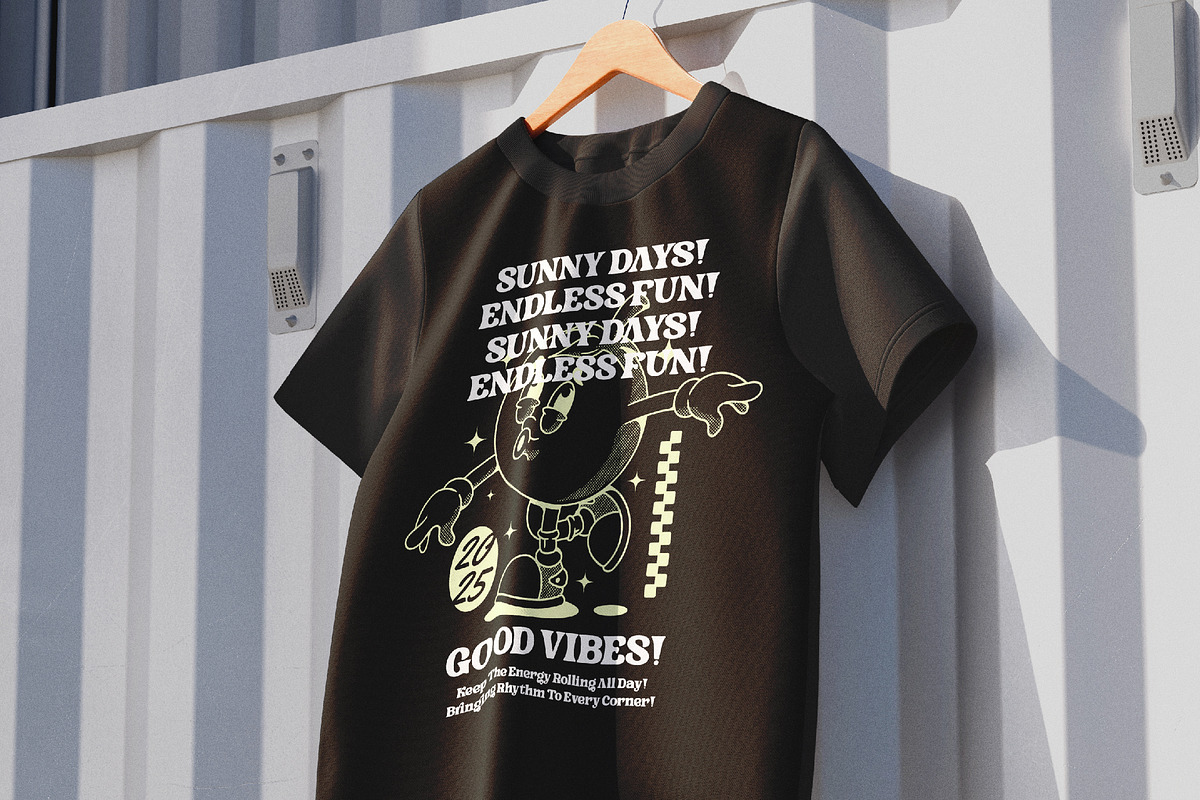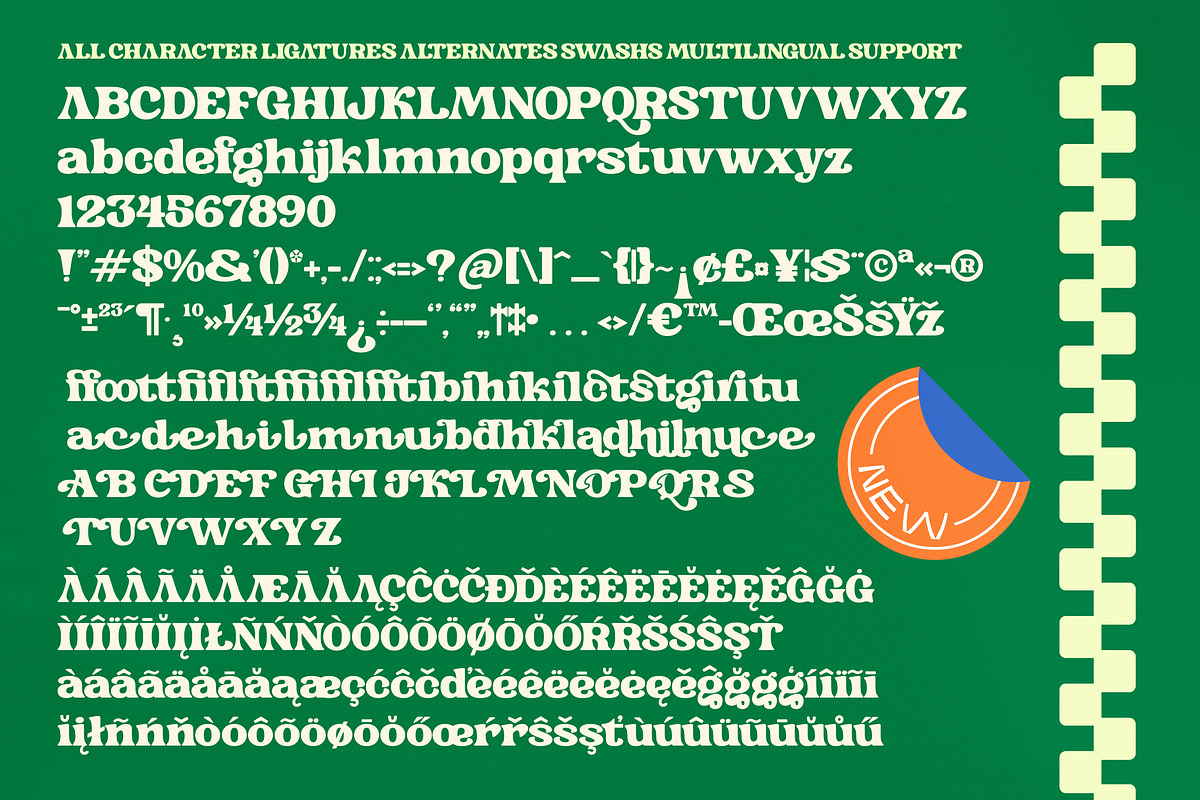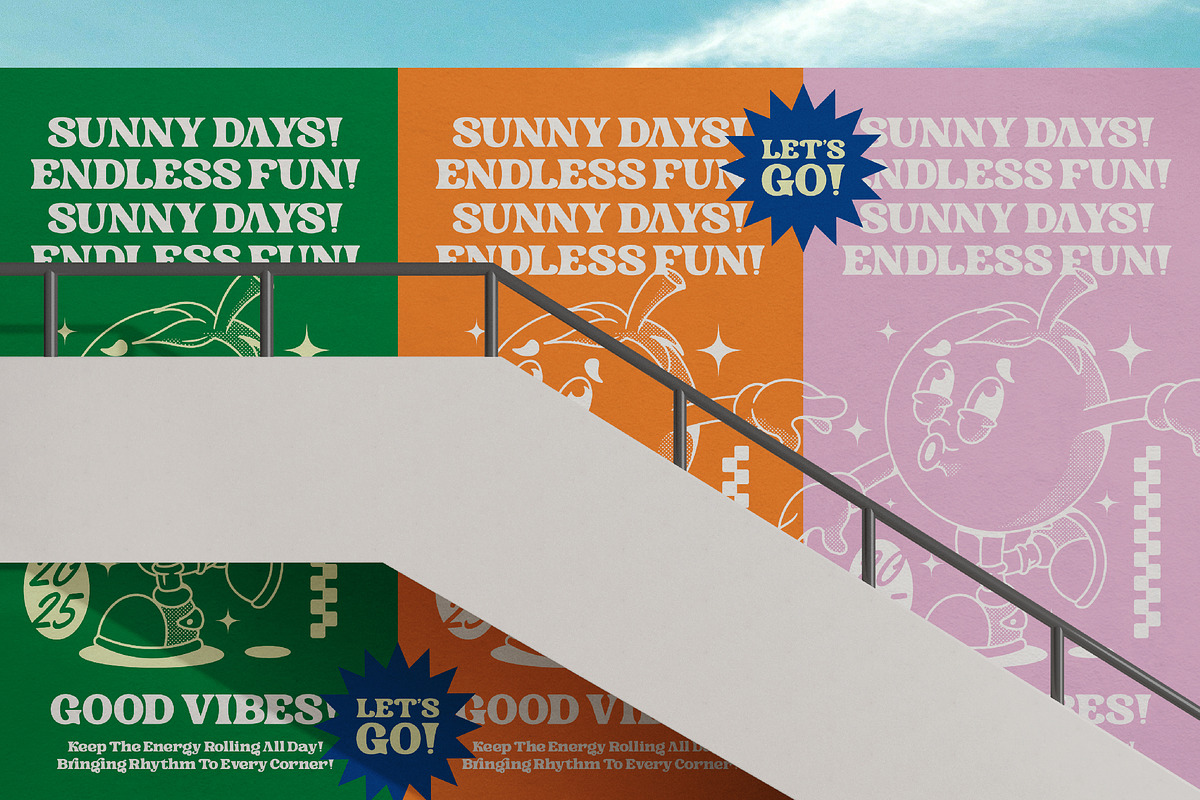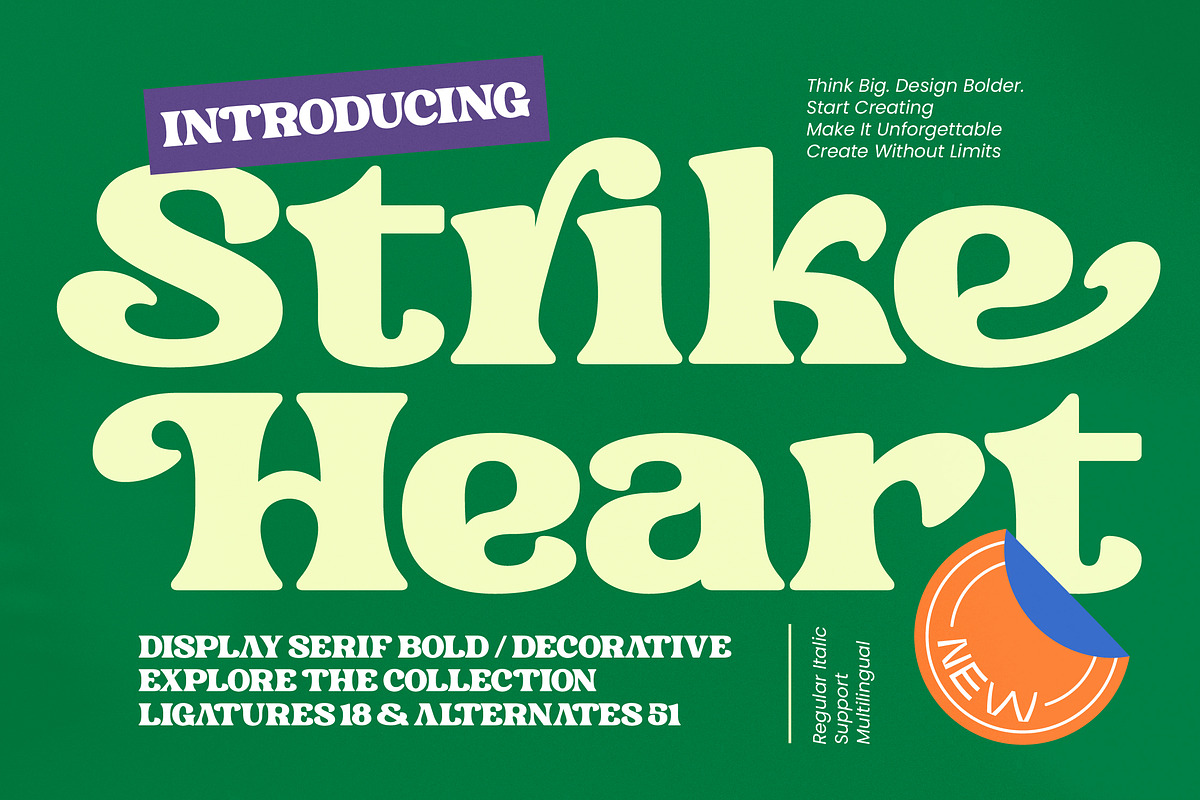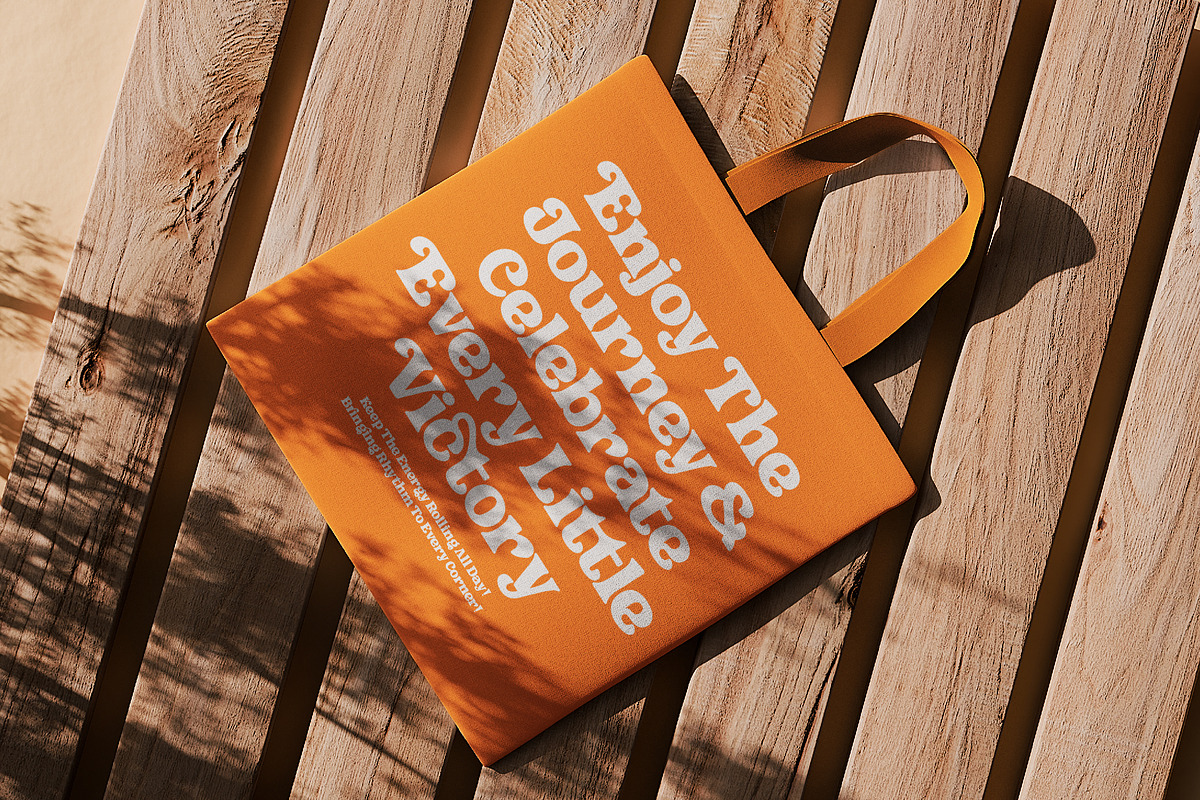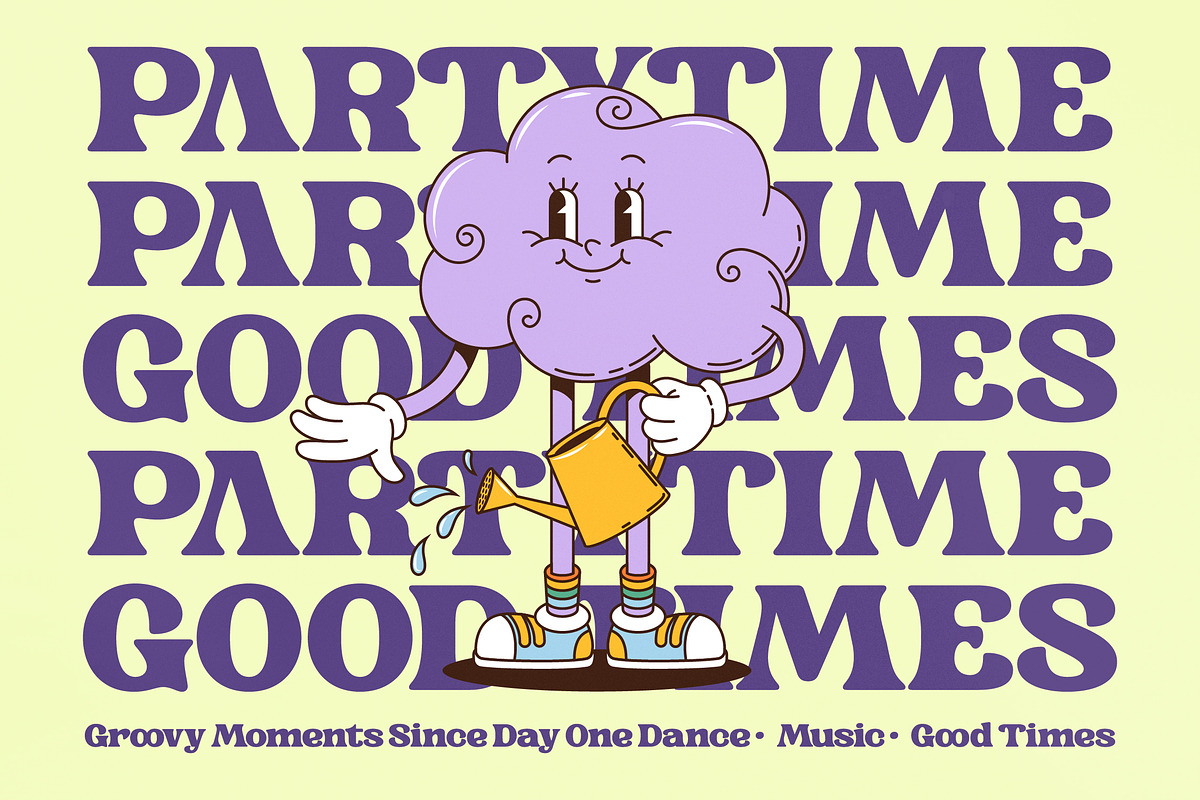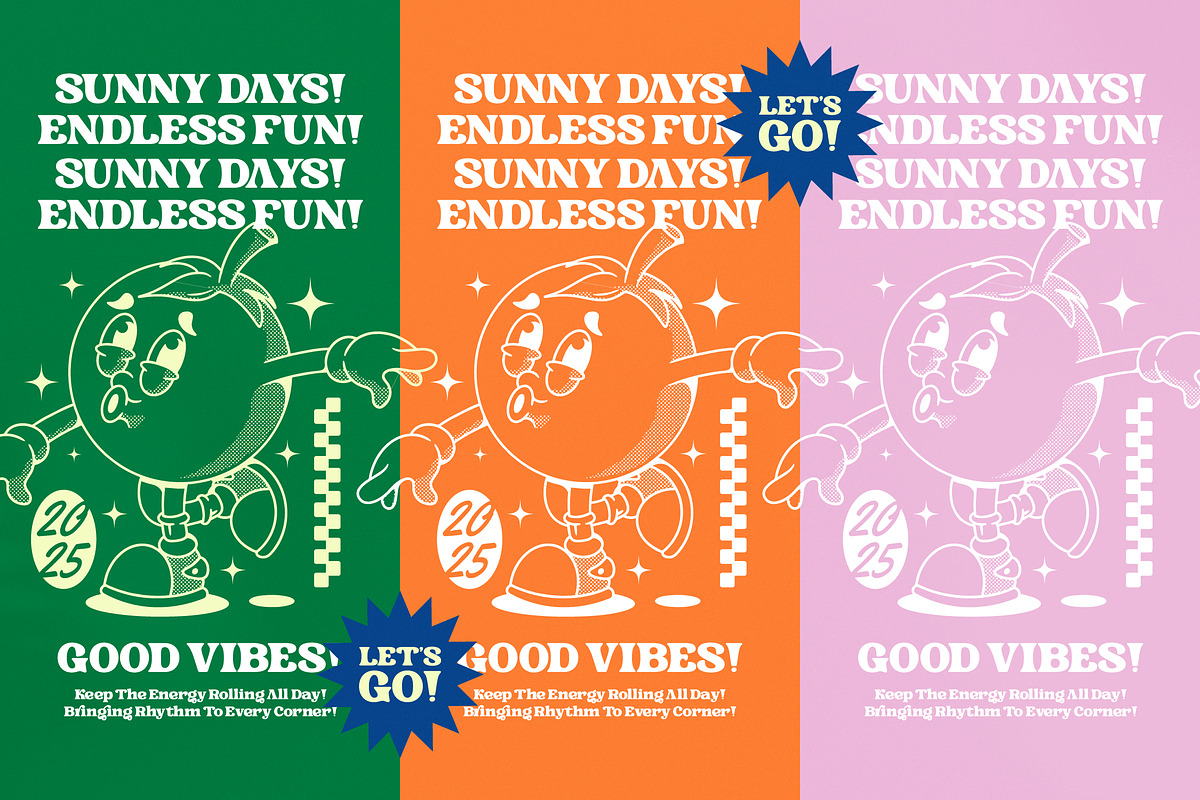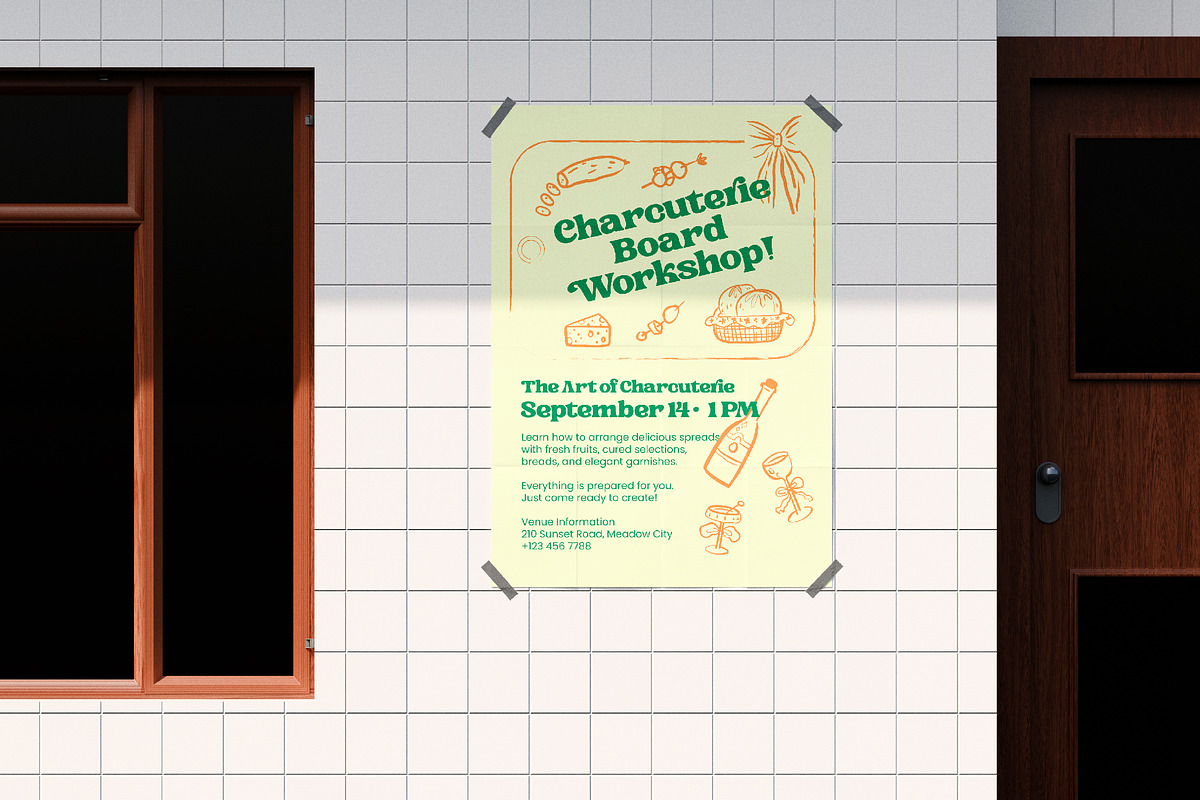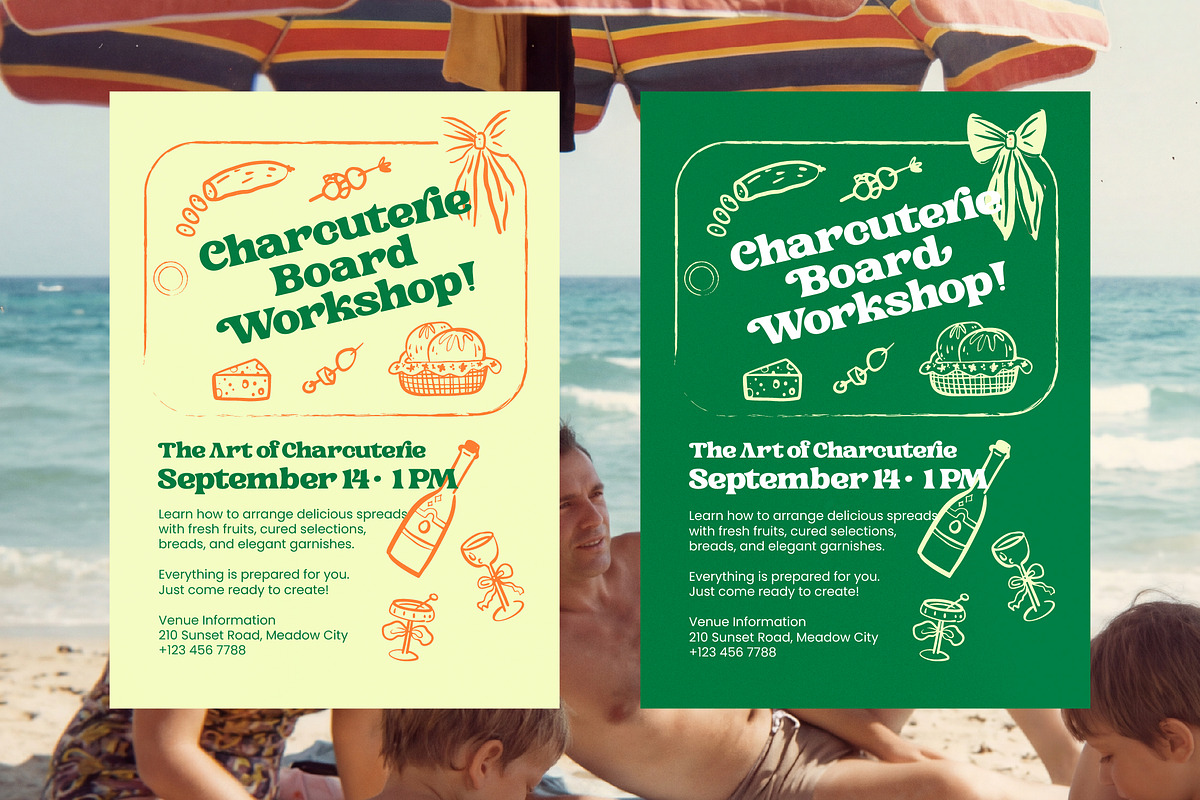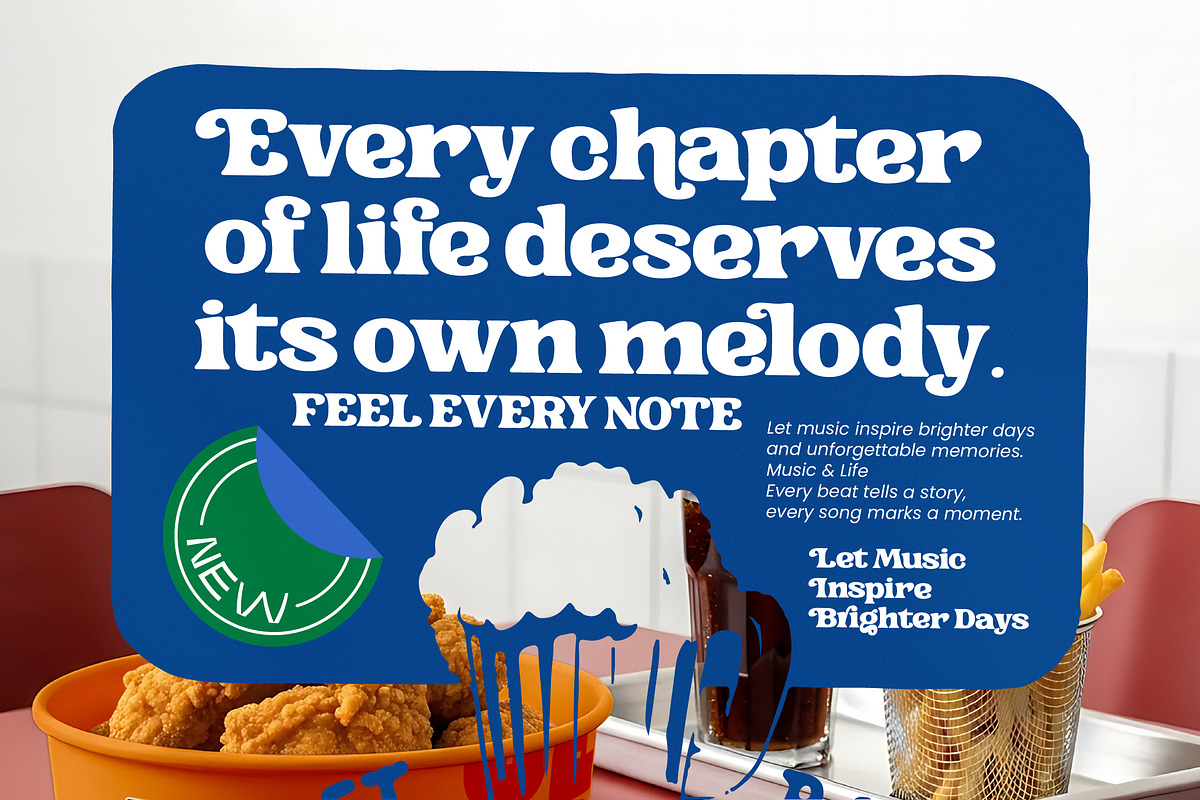
Strike Heart Display Serif Bold
Strike Heart – Display Serif Bold , Elevate your creative vision with a typeface that masterfully blends nostalgia with modern sophistication. Strike Heart – Display Serif Bold is a retro-inspired masterpiece that captures attention through its high-contrast strokes and fluid, organic curves. This decorative serif offers a unique balance of playful energy and bold authority, making it an essential asset for designers looking to infuse their work with a distinctive personality.
Command attention across every medium with a font engineered for maximum visual impact. This typeface is the perfect solution for luxury branding, high-end packaging, and sophisticated editorial design. It is perfect for creating standout logos, impactful posters, and vibrant magazine layouts where a premium aesthetic is required to engage a discerning audience.
Expand your design capabilities with a robust set of features designed for global communication. With its extensive multilingual support, Strike Heart – Display Serif Bold adapts seamlessly across global markets, making it incredibly versatile for international projects. By utilizing its 51 stylistic alternates and 18 unique ligatures, professionals can achieve custom typographic layouts that feel bespoke and meticulously crafted for any language or market.
Transform your brand identity into an unforgettable visual experience by choosing a font that defines excellence. Strike Heart – Display Serif Bold represents the pinnacle of modern display typography, offering unrivaled versatility and a timeless appeal. Invest in a high-quality design tool that ensures your projects remain memorable, professional, and commercially successful in an increasingly competitive creative landscape.